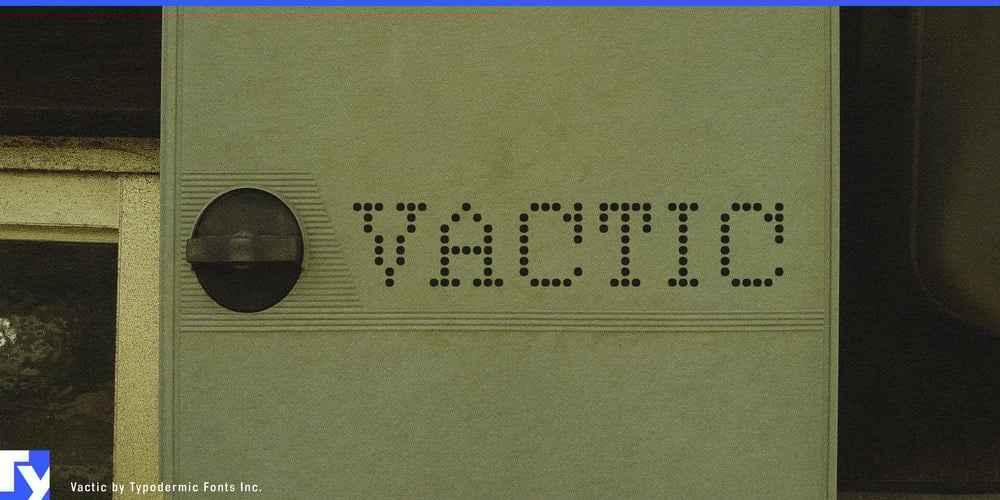
Vactic Font Family was designed by Ray Larabie and published by Typodermic. Vactic contains 1 styles and family package options. Step into a world where digital nostalgia meets modern design with Vactic, a typeface that beautifully captures the essence of early computer aesthetics. Vactic’s round, pinpoint pixels transport you to an era of ticker tape parades and monumental mainframes, all while offering the versatility demanded by today’s designers.Vactic’s meticulously crafted pixelated characters evoke the charm of vintage display boards, breathing new life into contemporary projects. Whether you’re crafting a retro-inspired logo, designing a cutting-edge user interface, or anywhere in between, Vactic delivers with pixel-perfect precision. Unleash your creativity with Vactic’s range of color possibilities. Opt for black on beige to channel the tactile allure of punch cards, or dial up the drama with red on black to recreate the glow of classic pixel boards. Each combination opens up new avenues for visual storytelling, allowing you to fine-tune the nostalgia factor to suit your project’s unique needs.Vactic speaks the language of the past fluently, while simultaneously conversing with the present. Its extensive character set supports a vast array of Latin-based European writing systems, ensuring your retro-tinged message resonates across borders. From Albanian to Zulu, Vactic’s pixels paint a picture of global communication, reminiscent of the early days of international digital networks.Don’t just design—time travel. Let Vactic be your portal to an age when every pixel mattered and the future of technology seemed limitless. Get Vactic today and infuse your work with the irresistible allure of digital days gone by.